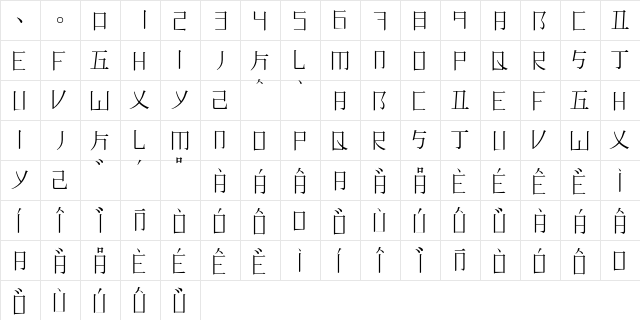
Romaji Mincho Regular
| Foundry | Adrian Candela |
| Designer | Adrian Candela |
Design Context for Romaji Mincho Typeface
Romaji Mincho is a composed and adaptable typeface that performs quietly and consistently across a wide range of design contexts.